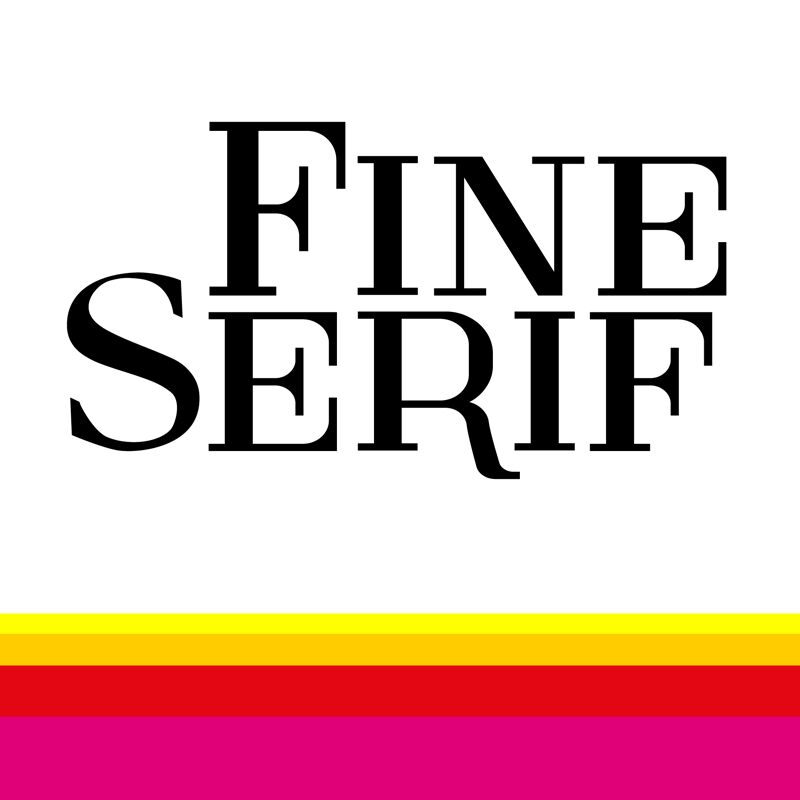
Fine Serif Regular
Fine Serif font by Galdino Otten Fonts is a free high-contrast serif display font. Its defining move is the razor-thin hairline meeting inky thick strokes—crisp, vertical, and cool as cut glass—giving headlines a luxe snap without looking stiff. The proportions sit tall and dignified, with sharp serifs that catch light like edges on engraved metal.
Using Fine Serif, you get instant couture energy for fashion branding, editorial mastheads, luxury packaging, wine labels, posters, invitations, and book covers. This free font sings at larger sizes where its hairlines stay clean and dramatic. For a polished system, pair it with a quiet grotesk sans for body copy and keep generous letterspacing to let the contrast breathe.